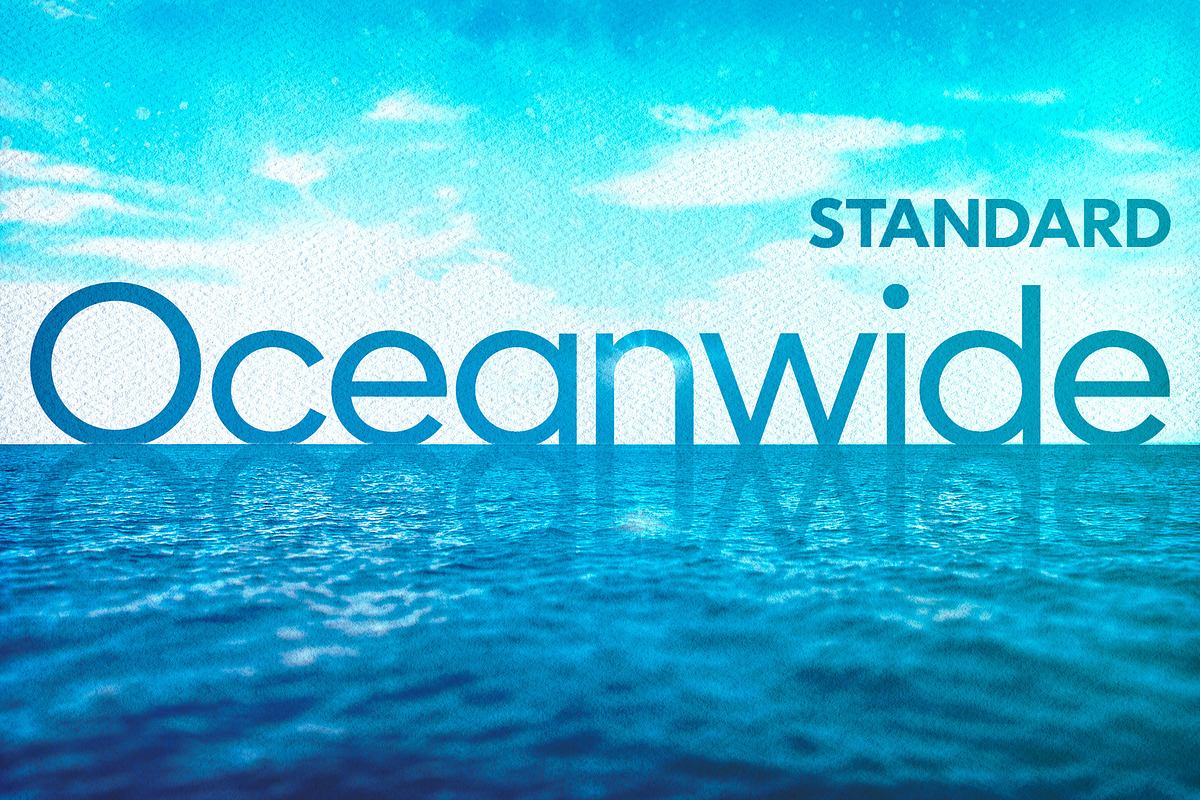
Oceanwide Standard: 6 Fonts Package Free Download is a versatile sans-serif type family designed for clarity, professionalism, and modern appeal. Featuring six carefully crafted weights—from light to bold—this package is ideal for everything from corporate branding and editorial layouts to web design and UI projects. With clean lines and balanced proportions, Oceanwide offers both function and style.
Its flexibility makes it a great choice for designers who need a reliable font that works beautifully in both large headlines and small body text. Whether you're designing a tech brand, clean brochure, or minimalist website, Oceanwide adapts with ease. You can freely download it for testing purposes, but a commercial license is required for any professional or monetized use.